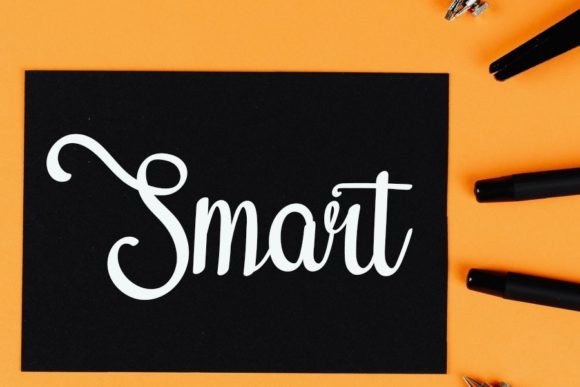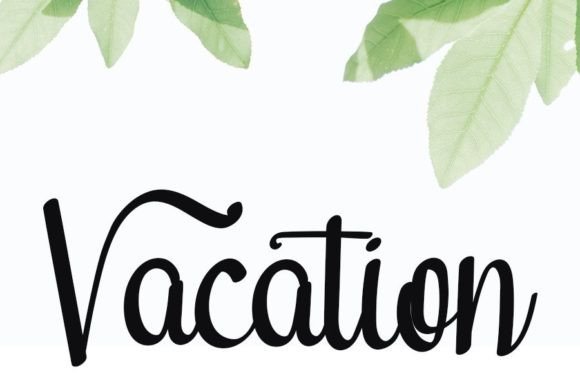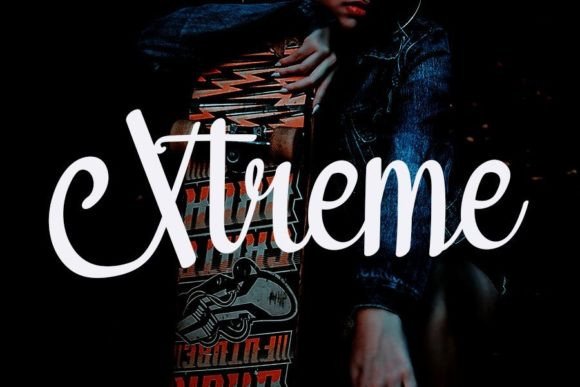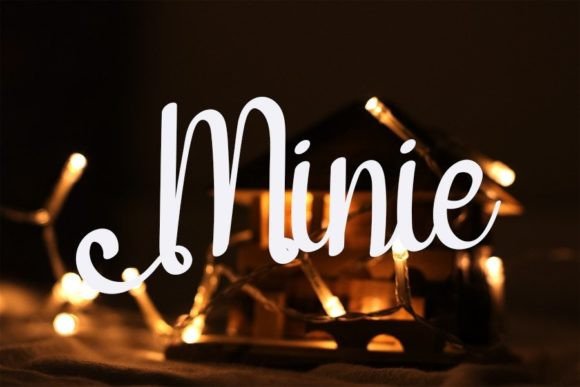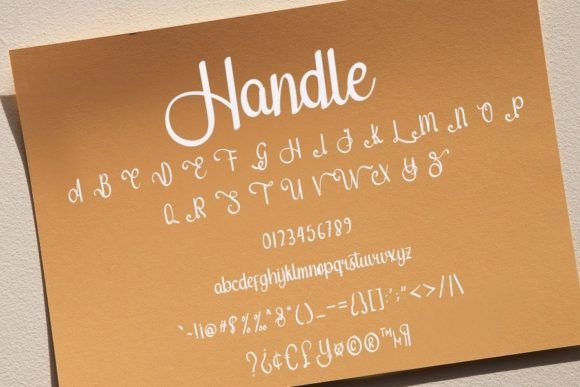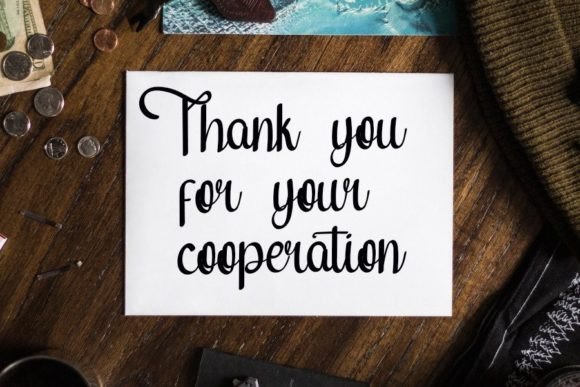
Introducing Handle Font: The Ultimate Go-to Choice for Designers and Crafters
Are you tired of using the same old fonts in your designs? Look no further! Handle Font is here to revolutionize your typography game. This clean, relaxed, and friendly handwritten font is perfect for a wide range of designs, from casual social media posts to professional branding materials. In this article, we’ll dive into the world of Handle Font and explore its features, benefits, and uses.
What is Handle Font?
Handle Font is a beautifully crafted handwritten font that exudes a sense of friendliness and approachability. Its neat and simple style makes it an excellent choice for designers and crafters who want to add a personal touch to their work. Whether you’re creating a logo, brochure, or website, Handle Font is sure to make your design stand out.
Key Features of Handle Font
- Clean and Simple Style: Handle Font boasts a clean and simple style that makes it easy to read and understand.
- Relaxed and Friendly: The font’s relaxed and friendly vibe makes it perfect for designs that require a personal touch.
- Versatile: Handle Font can be used for a wide range of designs, from casual social media posts to professional branding materials.
- Easy to Read: The font’s clear and legible design ensures that your message is conveyed effectively.
Benefits of Using Handle Font
So, why should you choose Handle Font for your next design project? Here are just a few benefits of using this amazing font:
- Adds a Personal Touch: Handle Font adds a personal touch to your designs, making them more relatable and engaging.
- Enhances Readability: The font’s clear and legible design ensures that your message is conveyed effectively.
- Increases Versatility: Handle Font can be used for a wide range of designs, making it an excellent addition to your font library.
- Boosts Creativity: With Handle Font, you can experiment with different design styles and ideas, pushing your creativity to new heights.
Use Cases for Handle Font
Handle Font is an incredibly versatile font that can be used for a wide range of designs. Here are just a few use cases to get you started:
- Branding Materials: Use Handle Font to create professional branding materials, such as logos, business cards, and brochures.
- Social Media Posts: Add a personal touch to your social media posts with Handle Font.
- Websites: Use Handle Font to create a friendly and approachable website that resonates with your audience.
- Invitations and Cards: Handle Font is perfect for creating invitations, greeting cards, and other paper crafts.
Tips and Tricks for Using Handle Font
Here are a few tips and tricks to help you get the most out of Handle Font:
- Experiment with Different Sizes: Handle Font looks great in a variety of sizes, so don’t be afraid to experiment.
- Pair with Other Fonts: Handle Font pairs well with other fonts, so try combining it with different typography styles.
- Use for Headings and Body Text: Handle Font is suitable for both headings and body text, making it an excellent choice for long-form content.
In conclusion, Handle Font is an excellent addition to any designer’s or crafter’s font library. Its clean, relaxed, and friendly style makes it perfect for a wide range of designs, from casual social media posts to professional branding materials. With its versatility, readability, and creative potential, Handle Font is sure to become your go-to font for all your design needs.